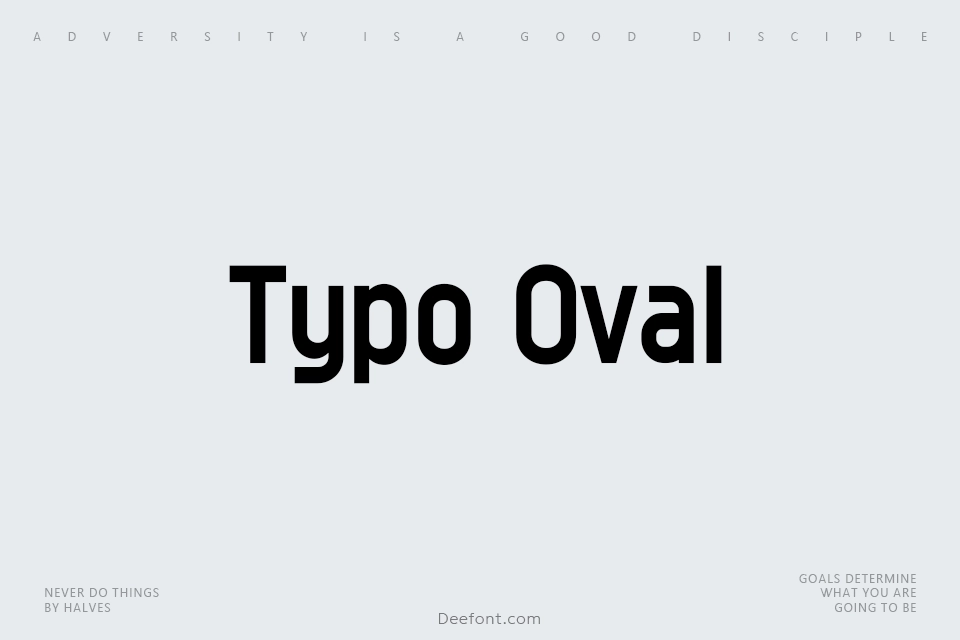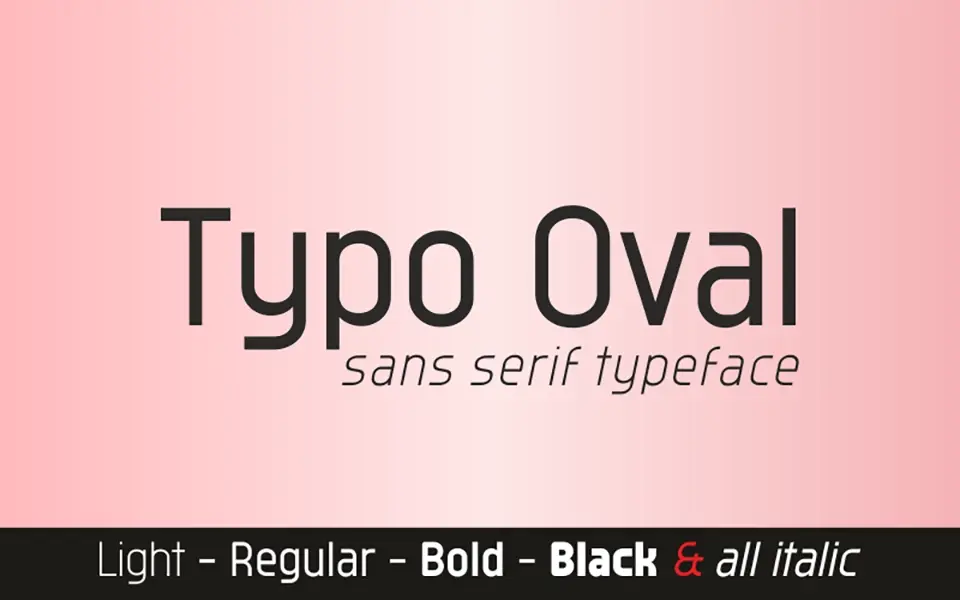
Typo Oval Font Family
Typo Oval is a contemporary sans serif typeface designed by Studio Typo, combining Swiss typography principles with modern geometric forms. Featuring oval-shaped characters with versatile weights from Light to Black, the font delivers both elegance and playfulness. Its thoughtfully crafted letterforms work exceptionally well for branding, editorial design, posters, social media graphics, and display purposes. The typeface balances mid-century grotesque influences with contemporary sensibilities, making it suitable for graphic design projects requiring both sophistication and personality.